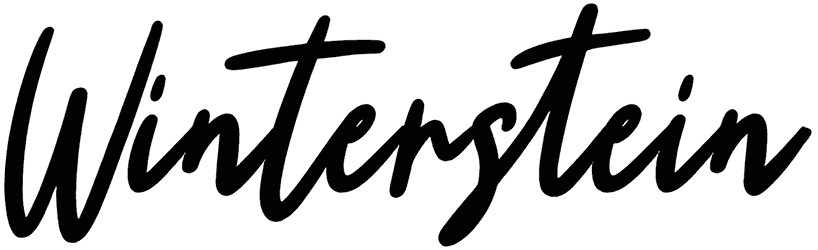
We are willing to introduce a script font such as Darlington which comes with a cursive style that dances along the baseline. This majestic typeface carries a sense of drama, personalization, jauntiness, and delicacy, so it can attract the attention of the audience to your graphic content including product packaging, invitations, gift cards, and greeting cards in the shortest time.